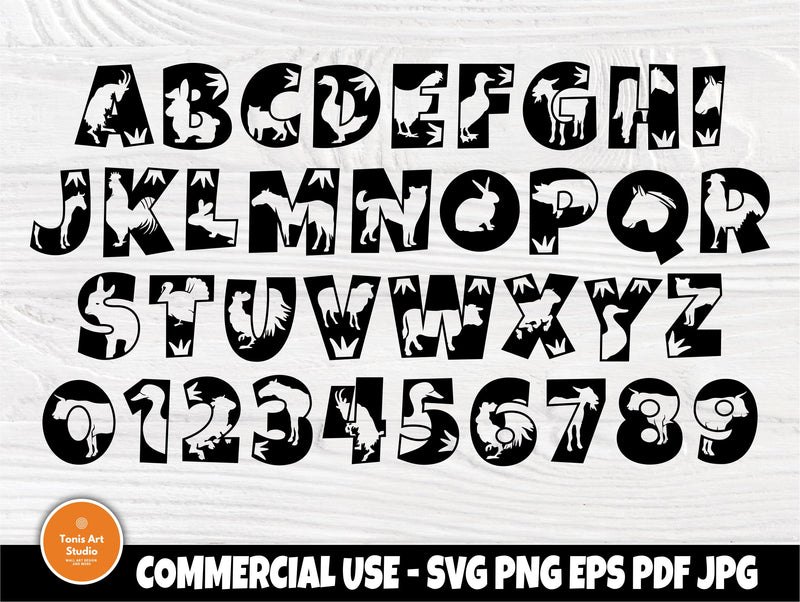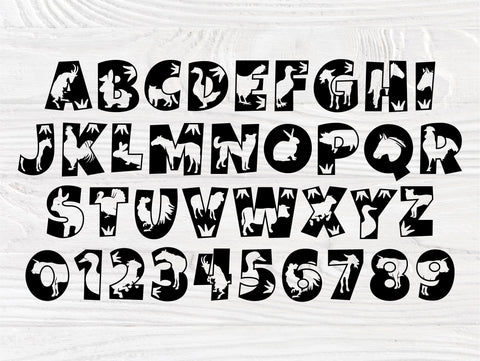
Animal Alphabet Svg, Farmhouse Font Svg
* Make your own project with these beautiful Animal Font SVG, Digital Download in SVG, PNG, EPS, PDF, JPG format. Animal Alphabet Svg | Farmhouse Font | Svg Files for Cricut and Silhouette | Farmhouse Svg Fonts | Farm Svg | Silhouette Svg | Letters Svg.